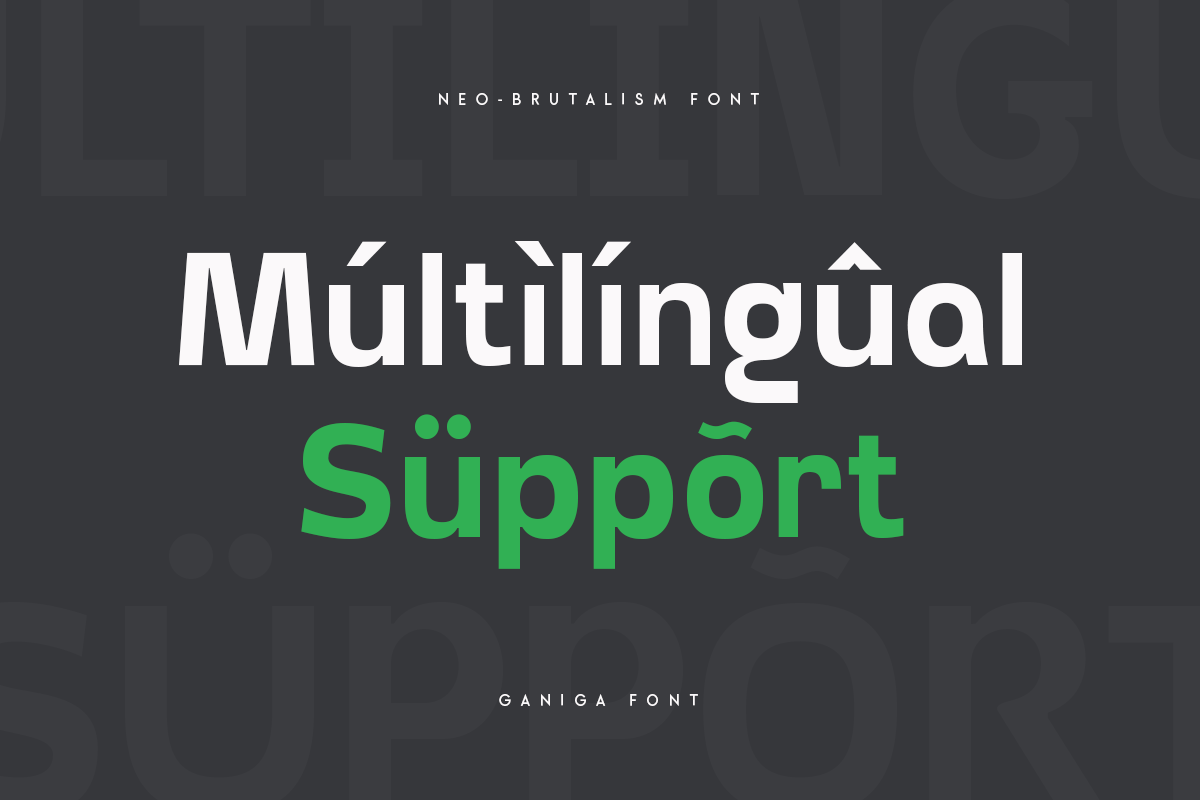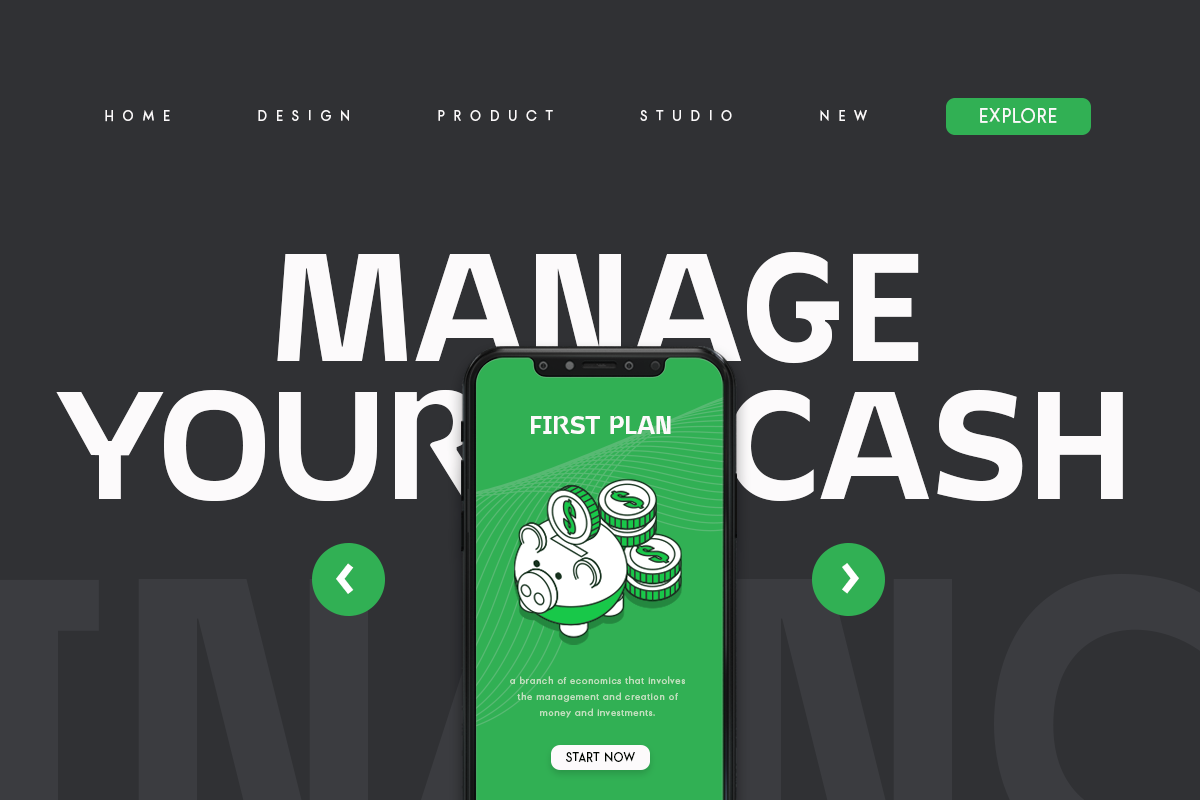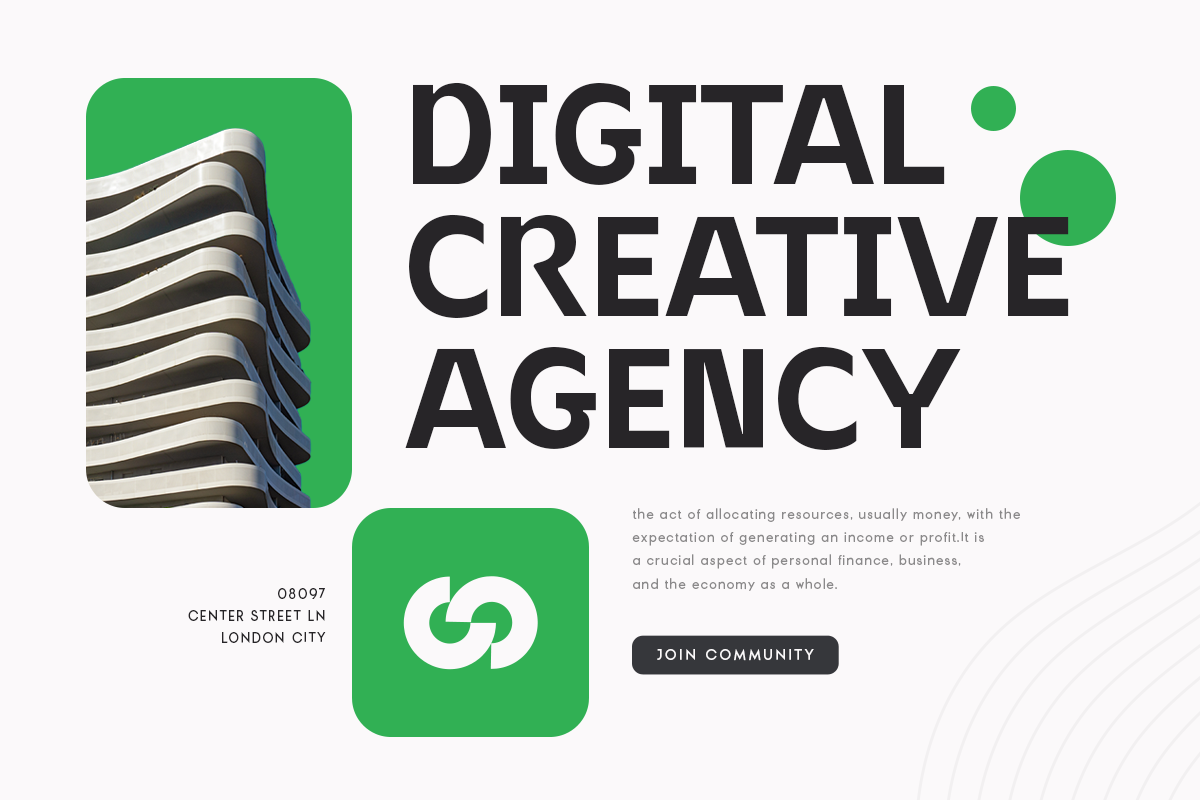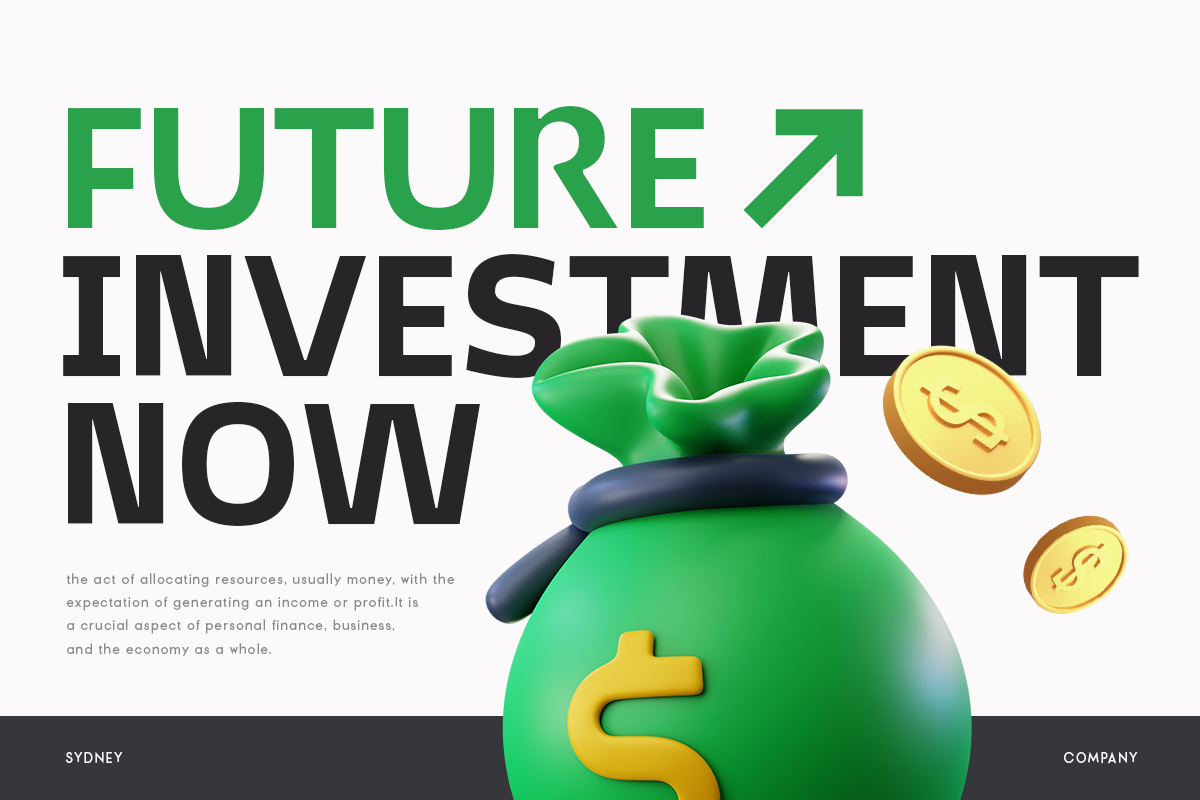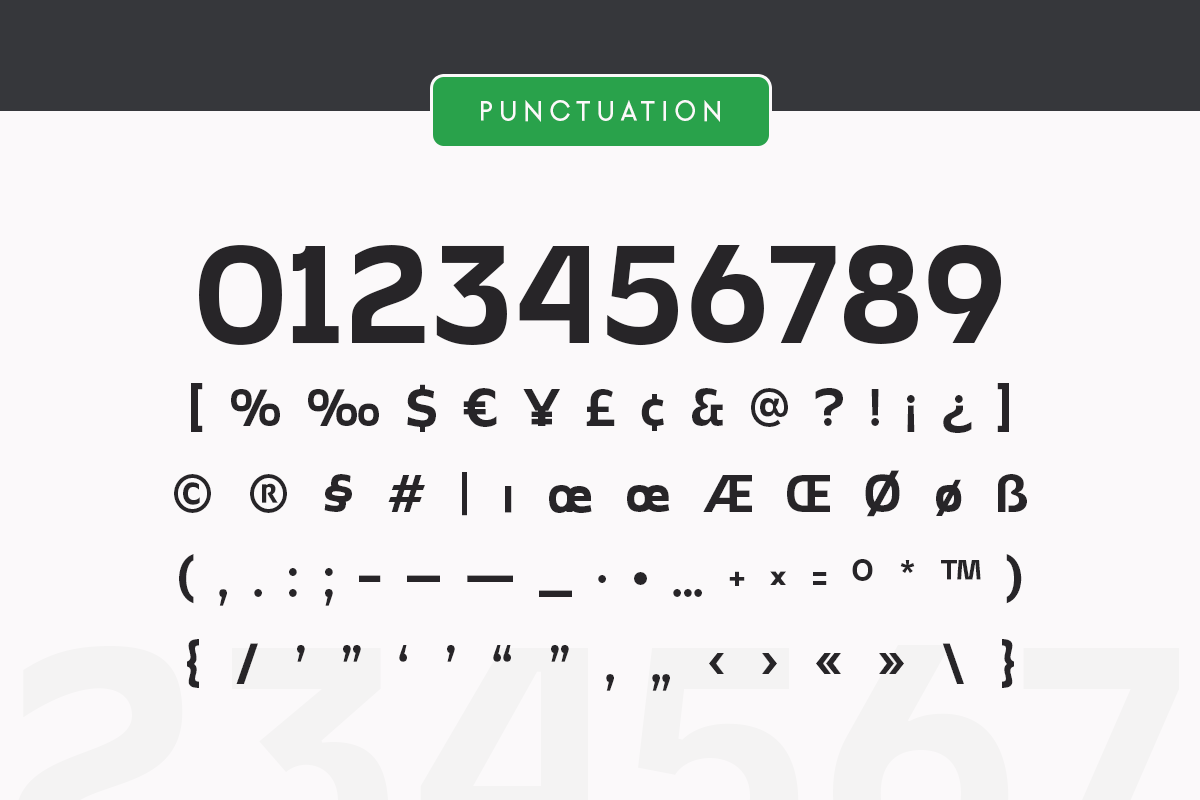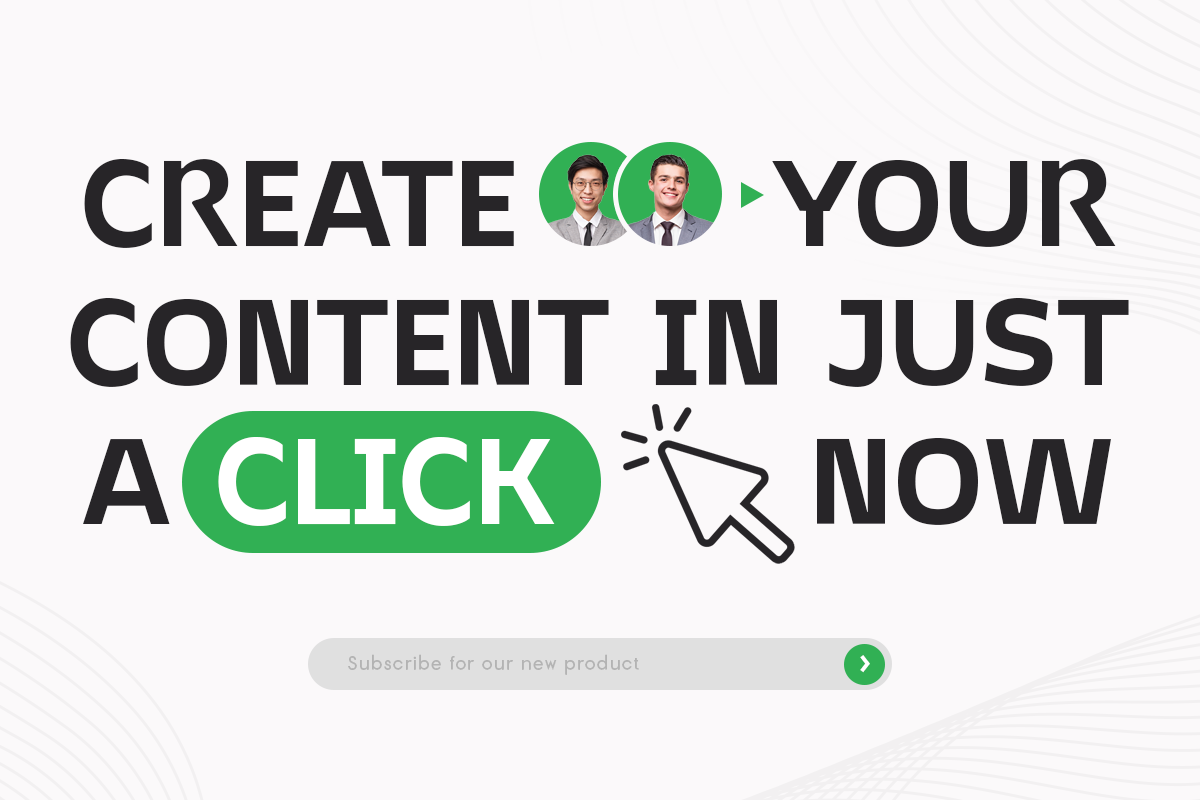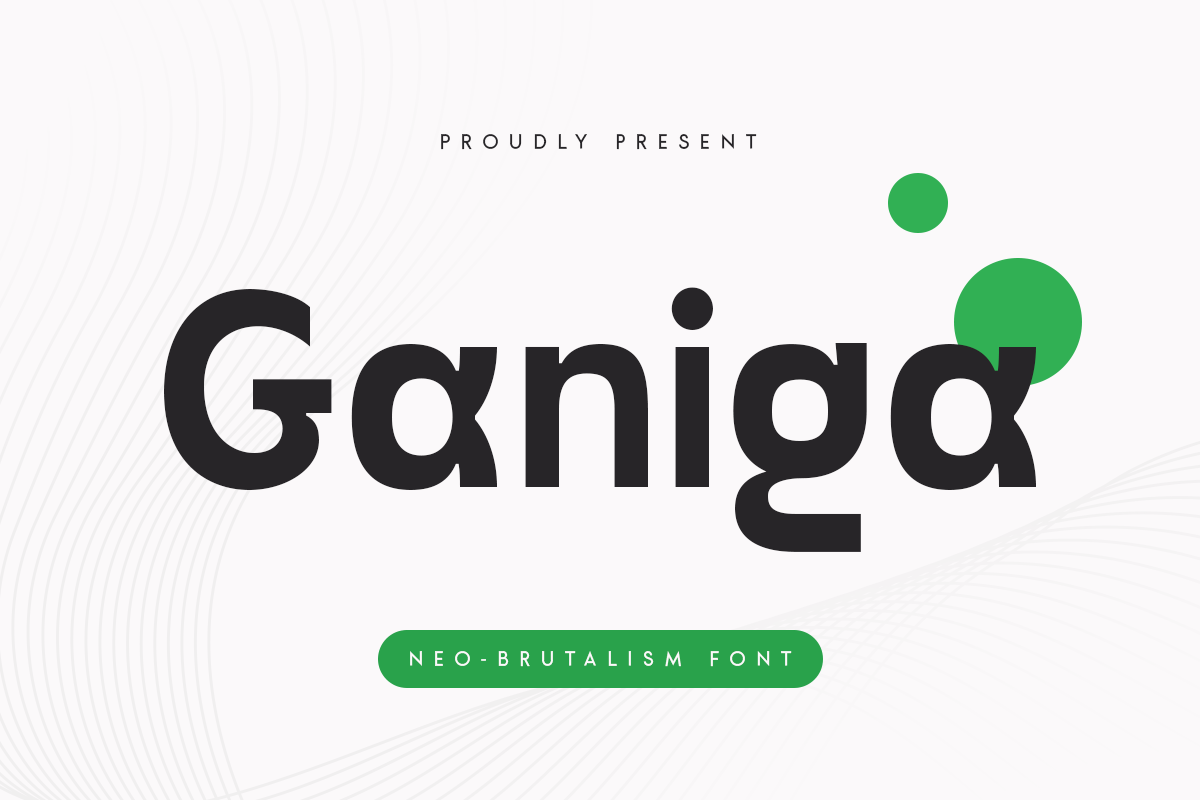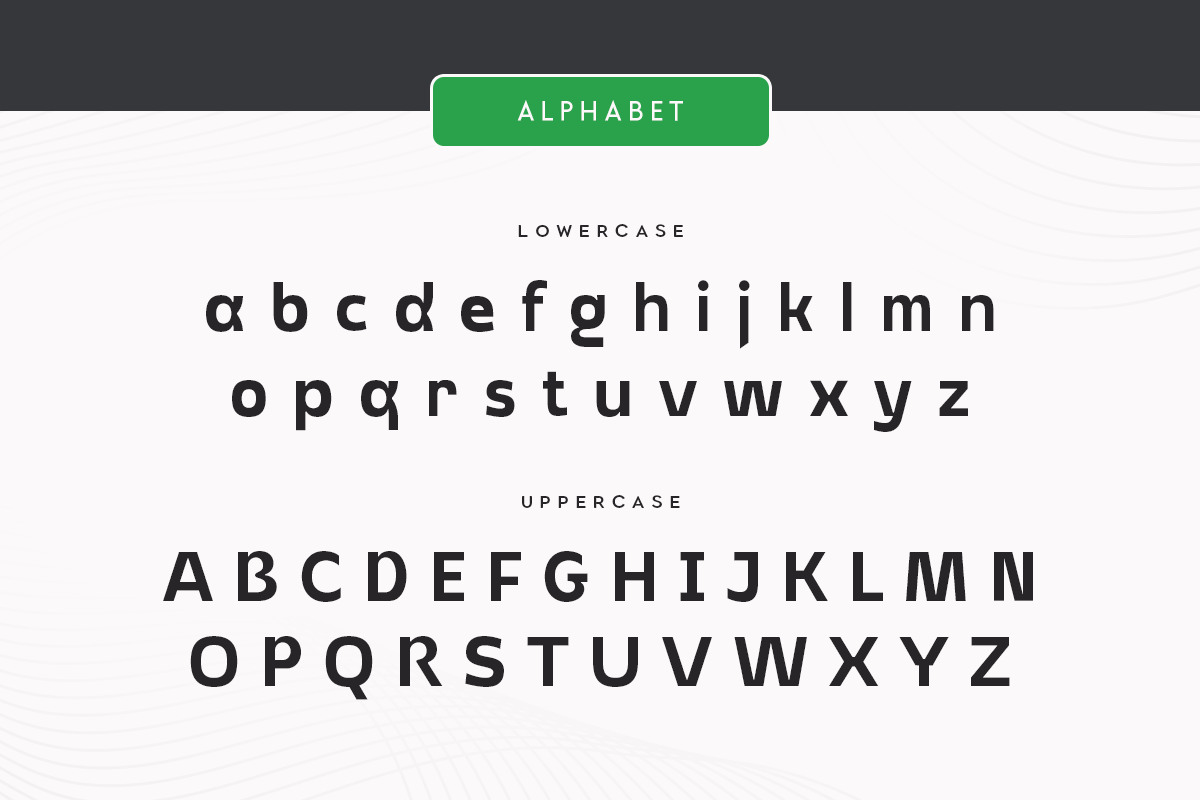
Ganiga - Neo Brutalism Font
Ganiga - Neo Brutalism Font by Hamz Studio is a font selected for branding, posters, packaging, typography.
- Unique Characters
- Character set A-Z
- Numerals & Punctuation
- Accented Characters (West Europe)
- Ganiga, Neo Brutalism Font is a modern font with minimalist and Corporate like a Startup style, font that you can combine to get any variati
Why Ganiga - Neo Brutalism Font is worth a look
Ganiga - Neo Brutalism Font by Hamz Studio fits naturally into Branding, posters, packaging, typography.